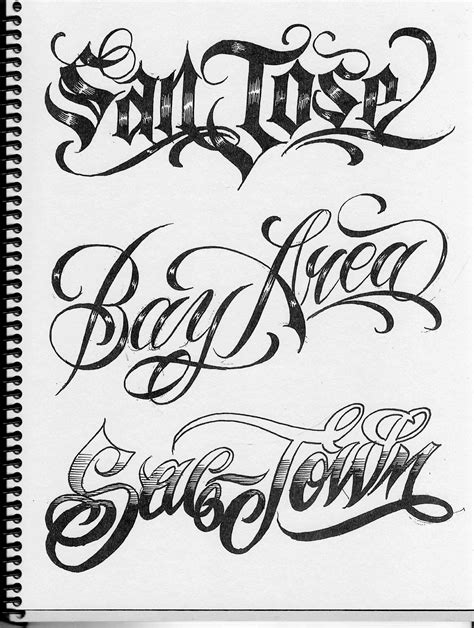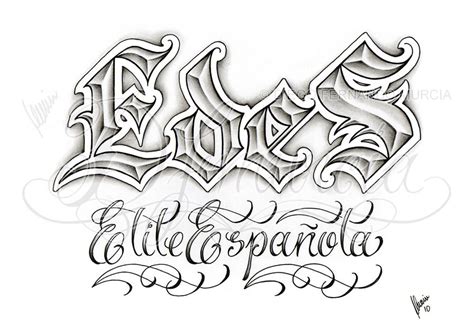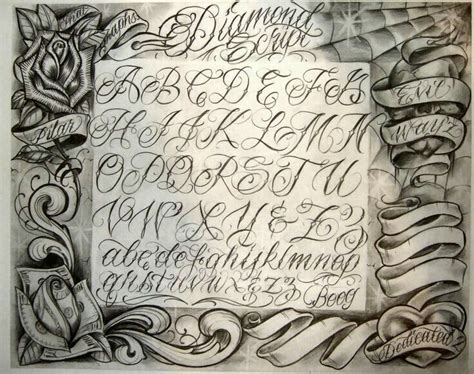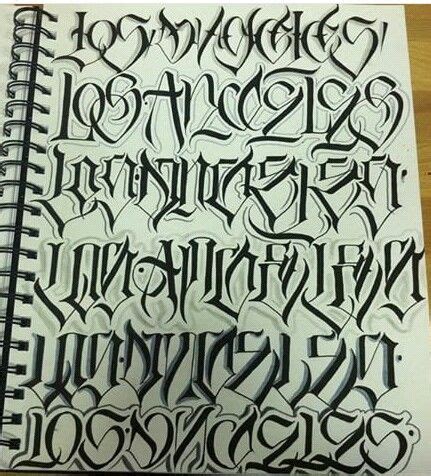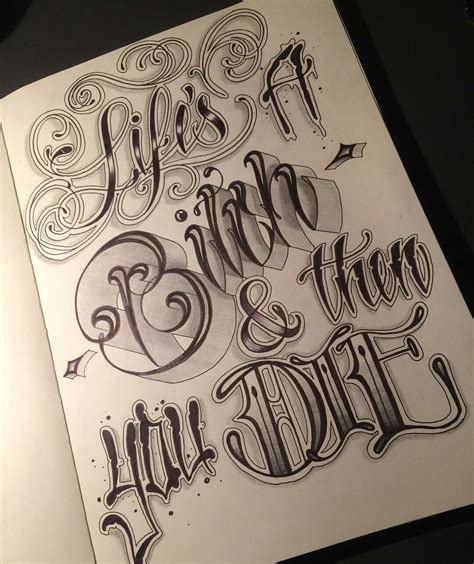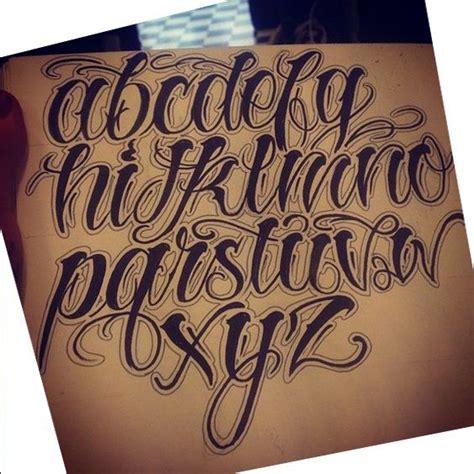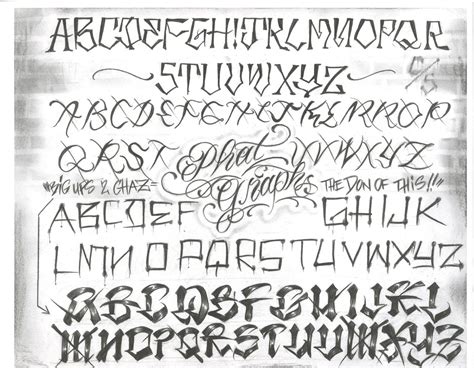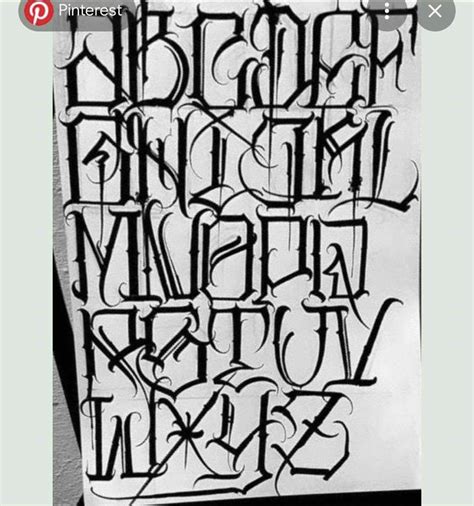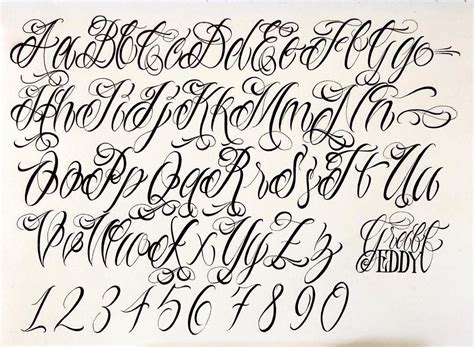
The chicano lettering font is a distinctive and visually striking style of typography that has become an iconic representation of the Chicano culture and community. This font is characterized by its bold, angular shapes and vibrant colors, often featuring a mix of lowercase and uppercase letters with a unique, stylized appearance. It has gained popularity not only within the Chicano community but also among artists, designers, and those seeking to make a bold statement through their written expression.
The font's origins can be traced back to the Chicano movement of the 1960s and 1970s, a period of cultural and political activism among Mexican-Americans in the United States. During this time, Chicano artists and activists began to develop a unique visual language to express their identity and resistance. The lettering style evolved from this movement, becoming a powerful symbol of pride and a means to communicate in a visually captivating way.
One of the key benefits of the chicano lettering font is its ability to convey a sense of strength and individuality. The bold and angular nature of the font makes it stand out, ensuring that any message or artwork created with this style will be noticed and remembered. This font has been used in various forms of media, including posters, t-shirts, and even as a basis for tattoos, allowing individuals to showcase their cultural identity and personal style.
Beyond its aesthetic appeal, the chicano lettering font also carries a deeper meaning. It serves as a reminder of the rich history and resilience of the Chicano community, reflecting their struggle for recognition and the celebration of their heritage. This font has become an important tool for cultural expression, allowing individuals to connect with their roots and share their stories through a unique and powerful visual medium.
In recent years, the popularity of the chicano lettering font has grown beyond its cultural origins, becoming a sought-after style in the world of design and typography. Its influence can be seen in various artistic movements and has inspired countless artists to explore and incorporate this distinctive style into their work. Whether used for personal expression or commercial projects, this font continues to leave a lasting impression and foster a sense of community and pride.